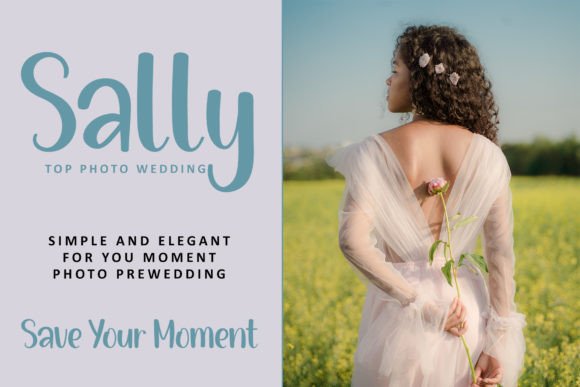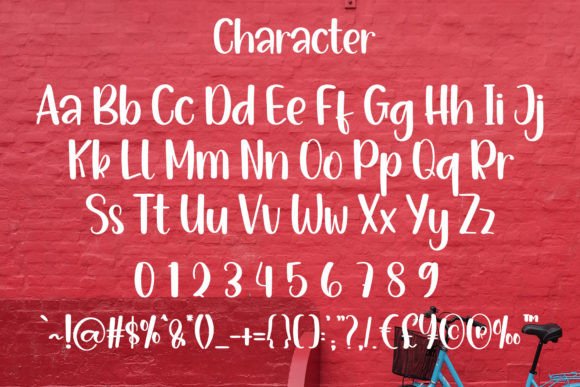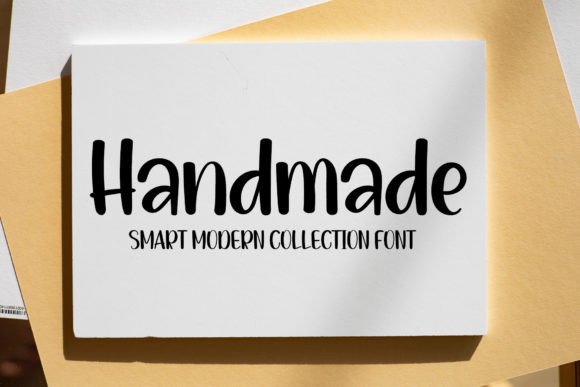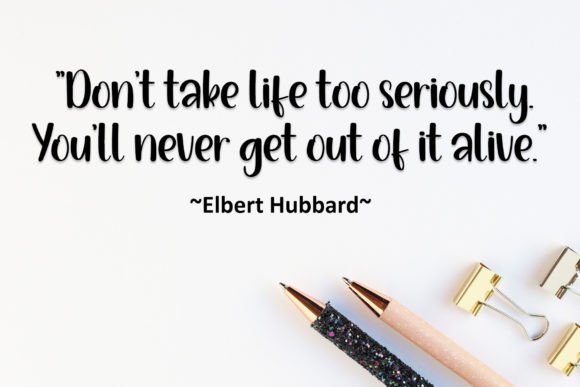
Introduction to Mandala Saturday Font
Mandala Saturday is a neat and beautiful handwritten font described by an elegant touch, perfect for your favorite projects.
Fall in love with its incredibly distinct and timeless style, and use it to create spectacular designs .
Key Features of Mandala Saturday Font
Why Choose Mandala Saturday Font?
Mandala Saturday Font offers exceptional quality and versatility, making it a valuable addition to your design toolkit. Whether you’re creating for personal projects or commercial use, Mandala Saturday Font delivers professional results.